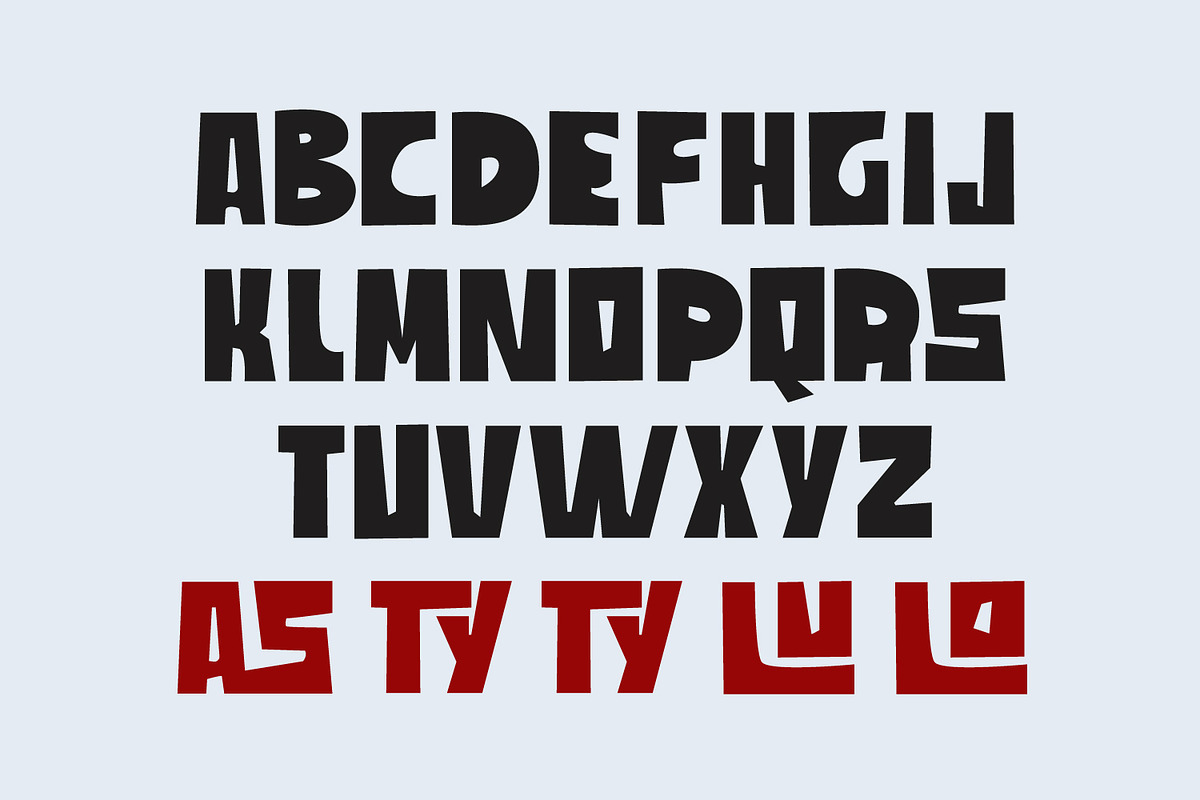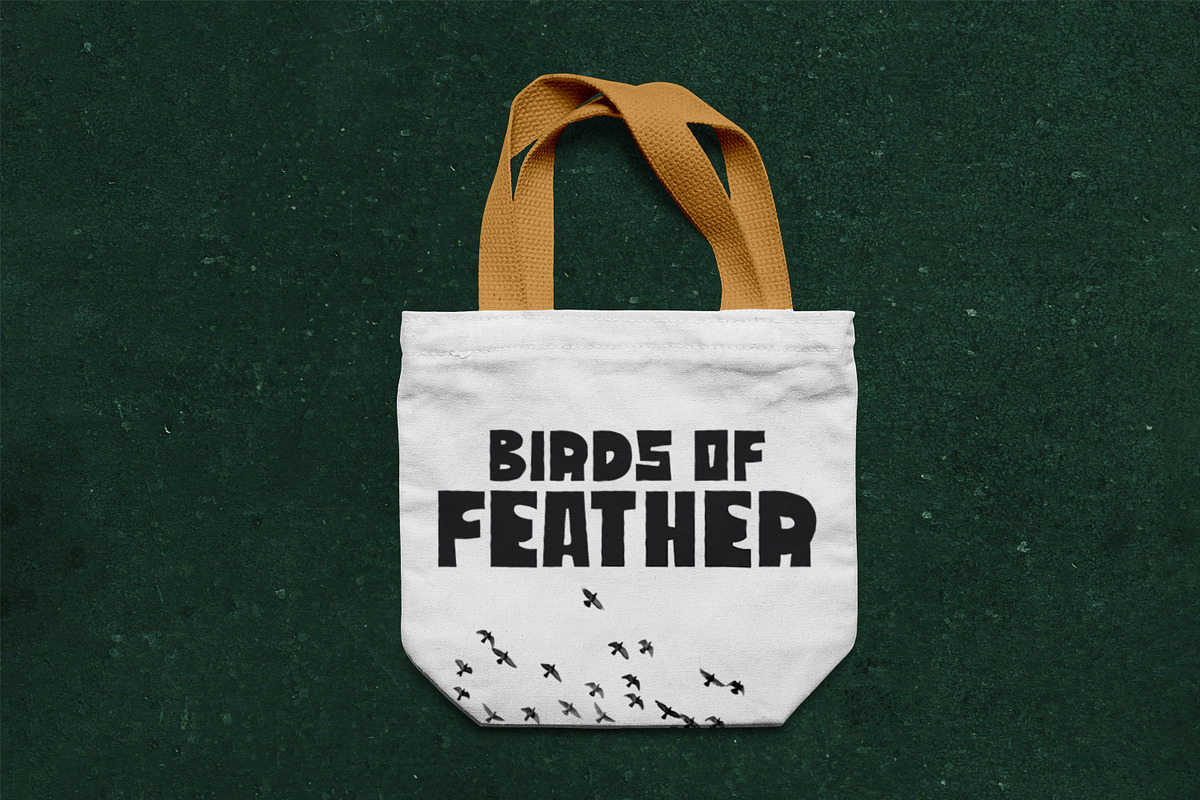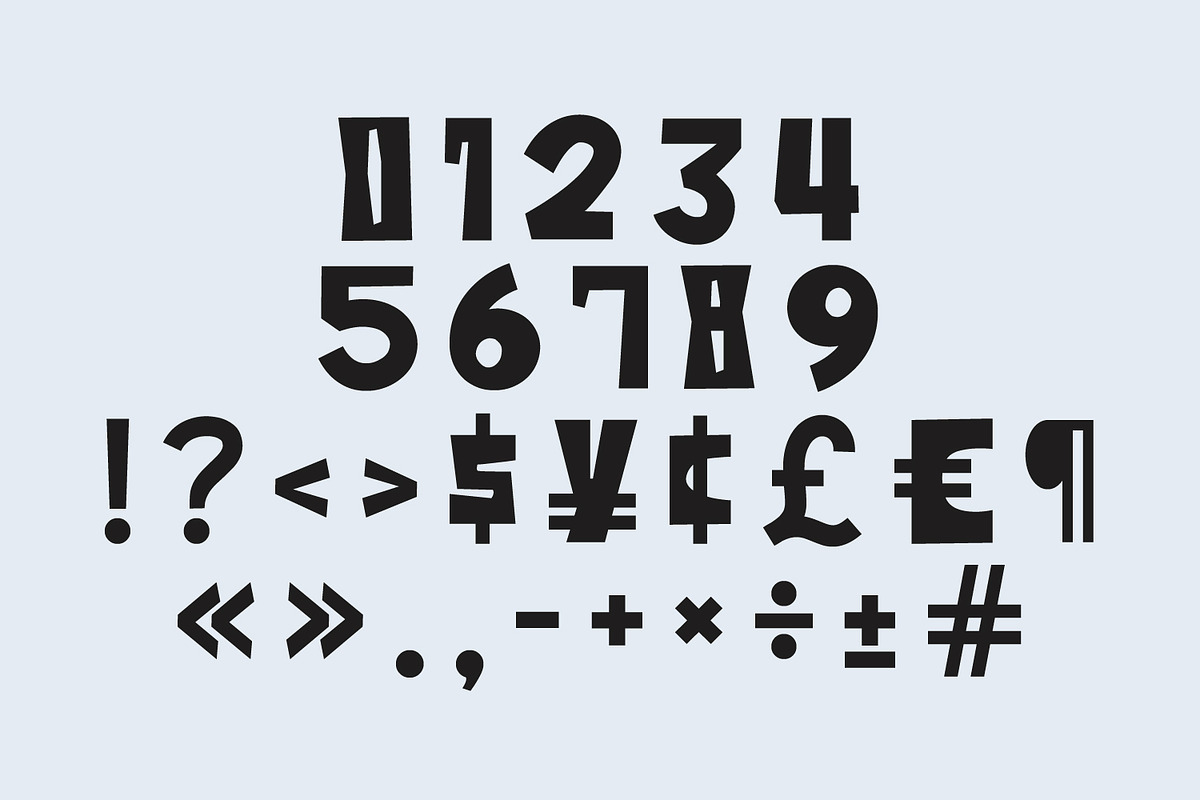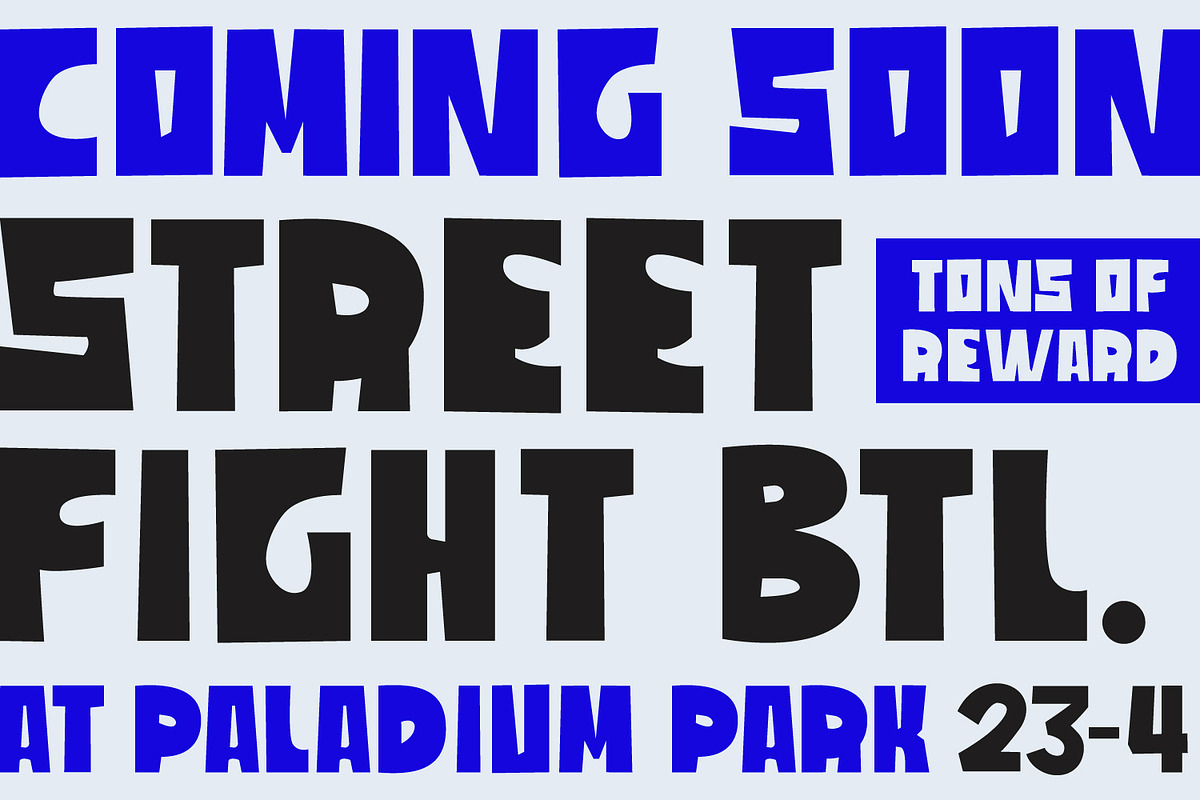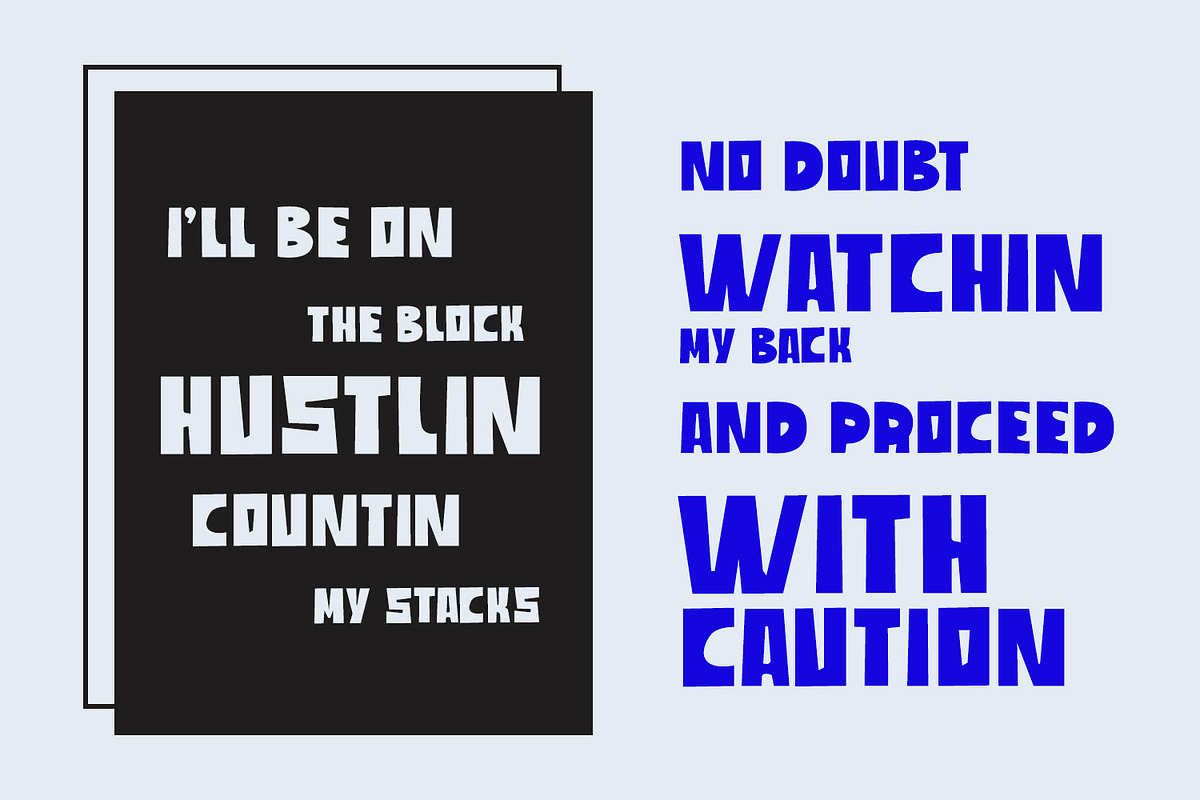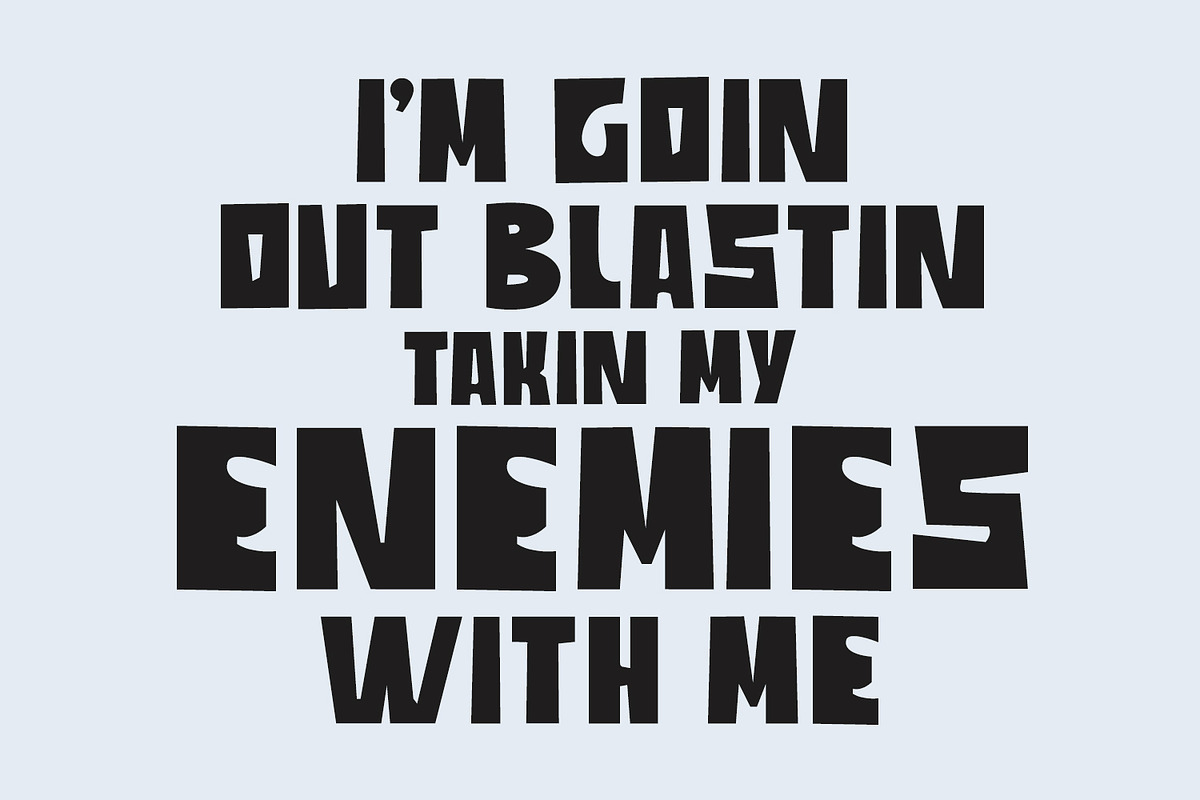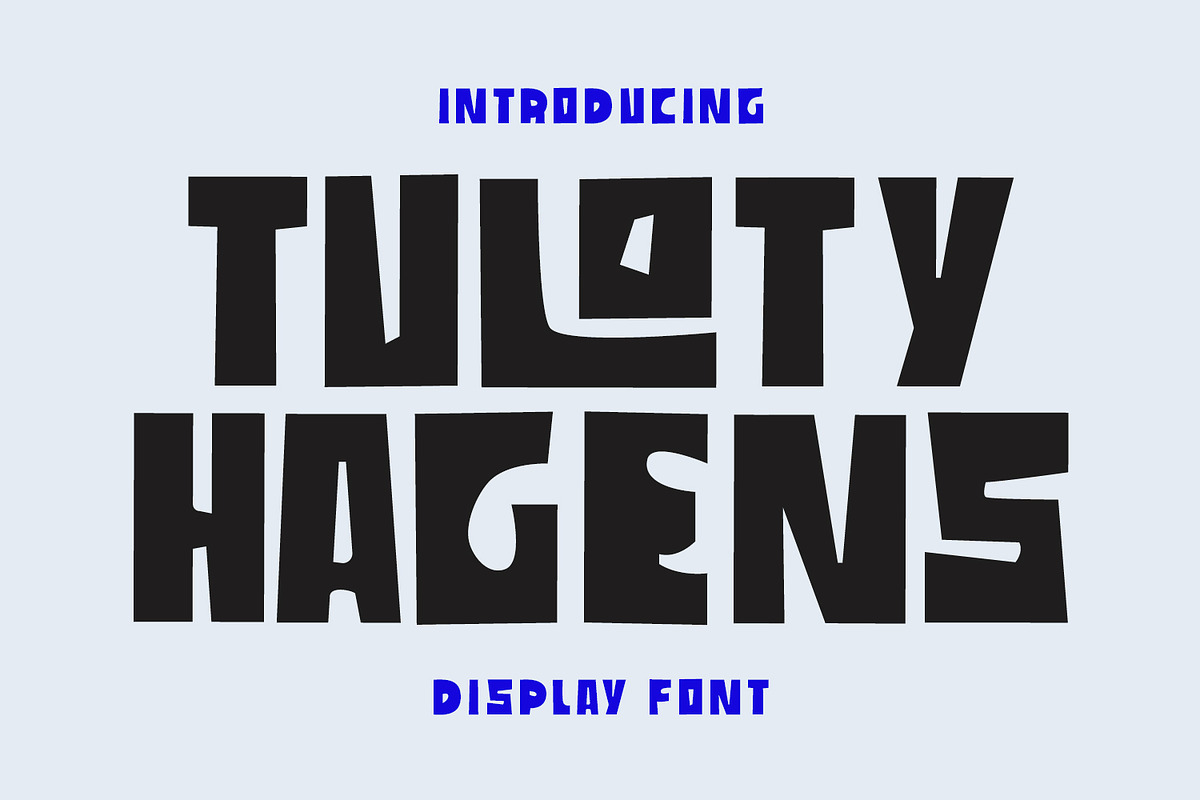
Tuloty Hagens Decorative Display Fon
Tuloty Hagens is an display decorative display font. With bold stroke, fun character with a bit of ligatures. To give you an extra creative work. Tuloty Hagens font support multilingual more than 100+ language. This font is good for logo design, Social media, Movie Titles, Books Titles, a short text even a long text letter and good for your secondary text font with sans or serif. Make a stunning work with Tuloty Hagens font.